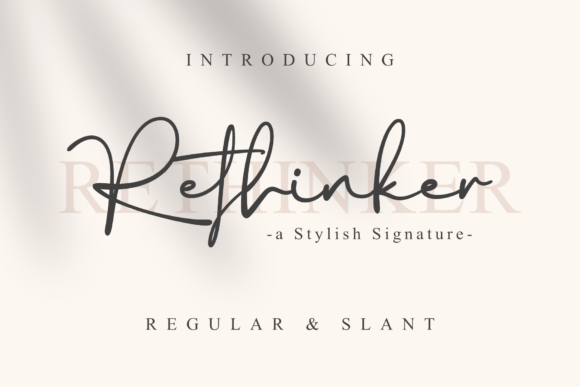
Prepare yourself to be captivated by Rethinker, a font like no other. This exquisite creation by DUMADI is a testament to the artistry of handwritten fonts. Its delicate strokes and elegant curves will add a touch of sophistication and charm to your designs.
Rethinker's distinct and well-balanced letters are a feast for the eyes. Each character exudes a sense of harmony and precision, making your words come alive on the page. Whether you're crafting logos, branding materials, or eye-catching headlines, Rethinker will elevate your designs to new heights.
As a script font, Rethinker possesses an inherent charm that evokes a sense of nostalgia and authenticity. Its flowing lines and graceful curves will add a personal touch to your creative endeavors. Imagine your designs adorned with the elegance of handwritten letters, capturing the hearts of your audience.
But Rethinker is not just a pretty face. It's also incredibly versatile. Its carefully crafted characters work seamlessly in a wide range of applications. From app design to branding, social media graphics to wedding invitations, Rethinker effortlessly adapts to your creative vision.
As a PUA-encoded font, Rethinker grants you easy access to all its glyphs and swashes. With just a few clicks, you can unleash a world of creative possibilities, adding intricate details and flourishes to your designs. The sky's the limit when you have Rethinker at your fingertips.